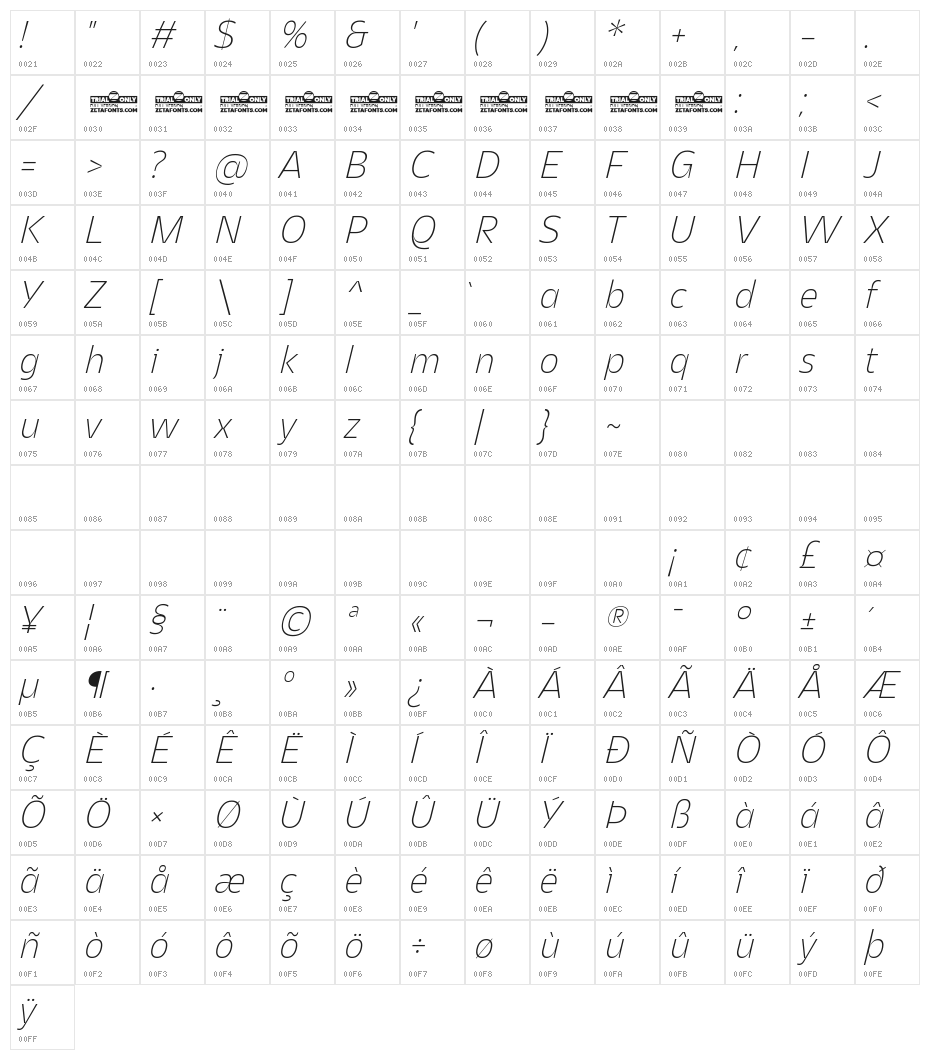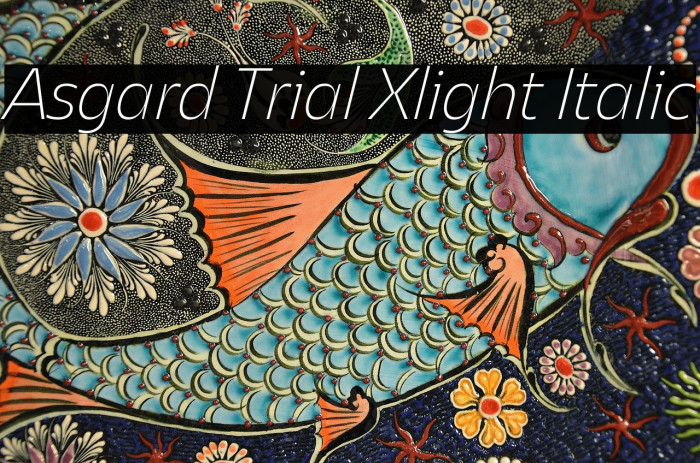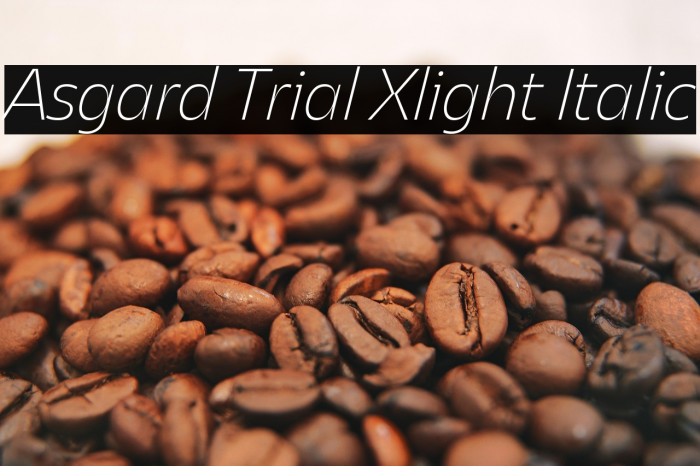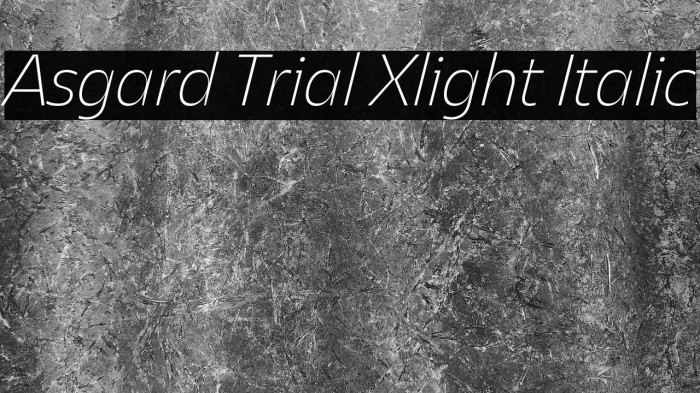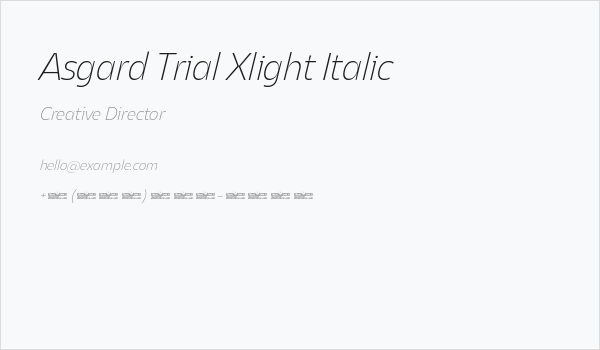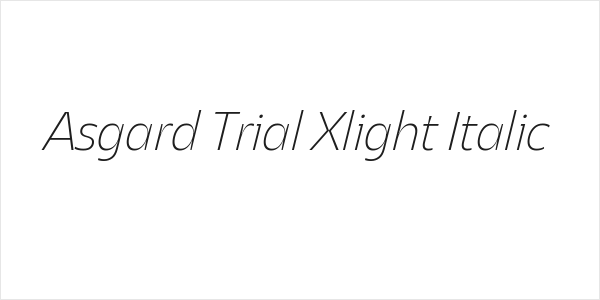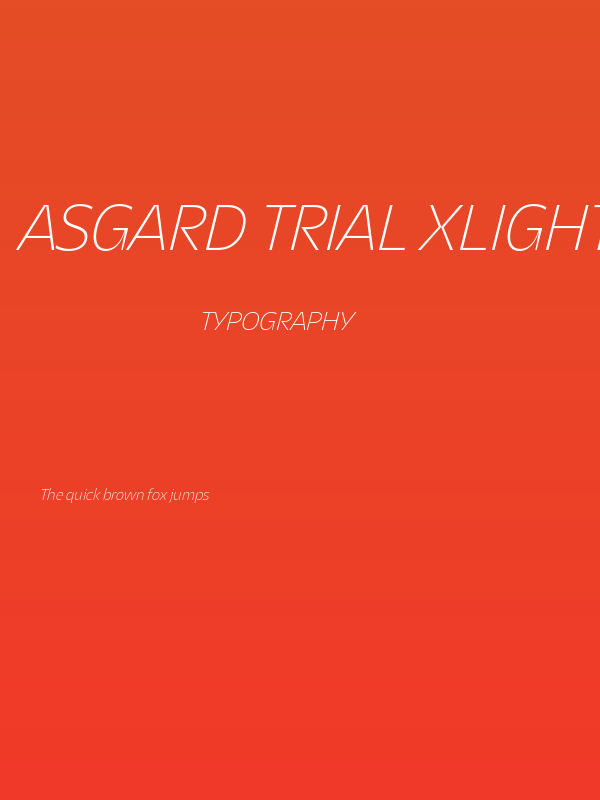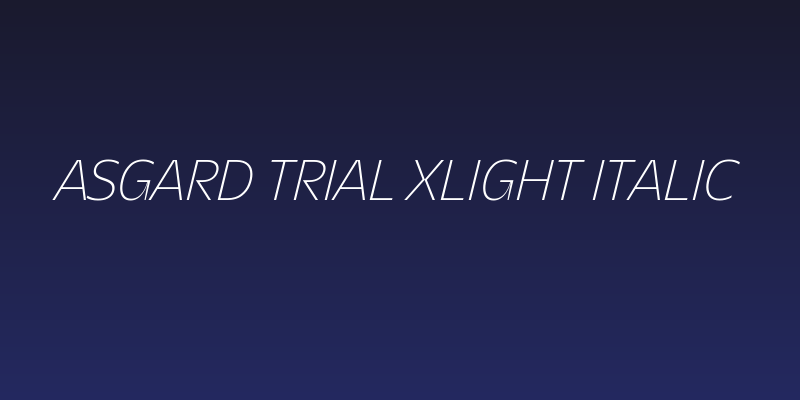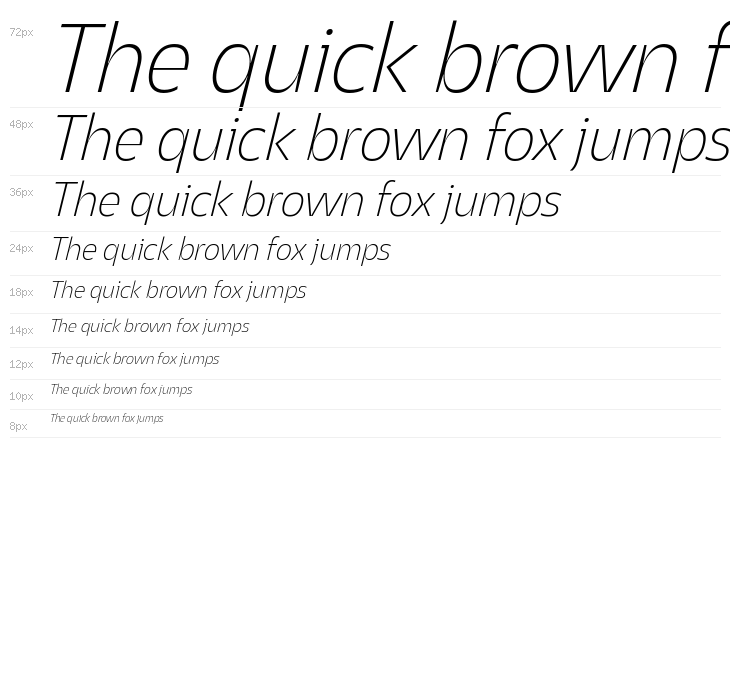
Asgard Trial Xlight Italic Font
Asgard Trial Xlight Italic Description
This font features a sleek and modern design with a light and airy feel. The characters are elegantly slanted, giving it an italicized appearance that adds a sense of motion and fluidity. The strokes are thin and consistent, contributing to a clean and sophisticated look. The uppercase and lowercase letters maintain a harmonious balance, while the numerals and special characters are designed with the same attention to detail. This font is ideal for projects that require a contemporary and stylish touch.
Proposed ProjectsIdeal for branding, editorial design, fashion magazines, and modern web design.